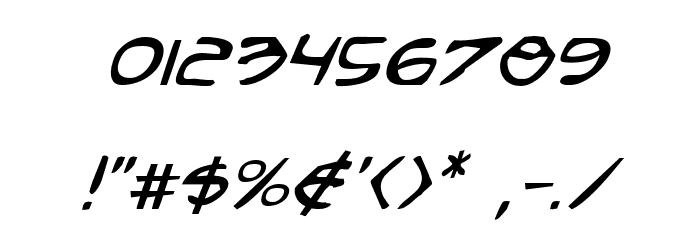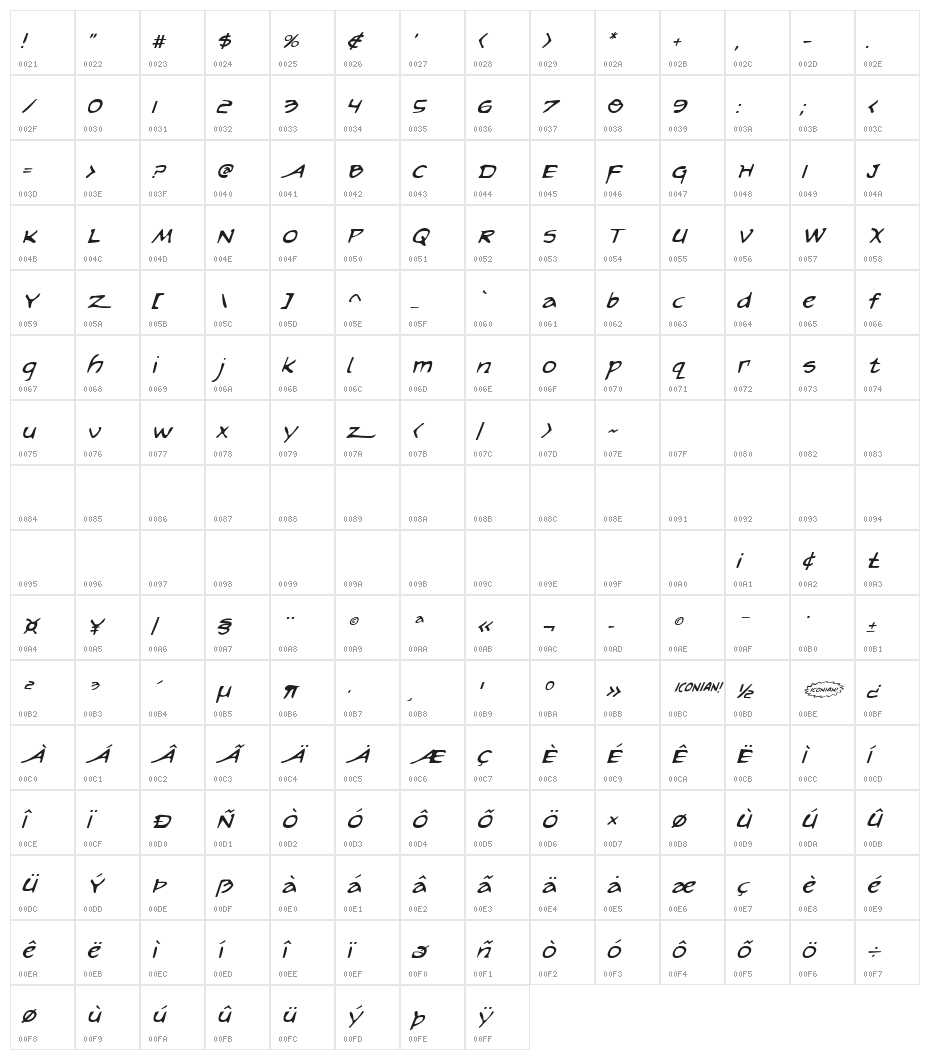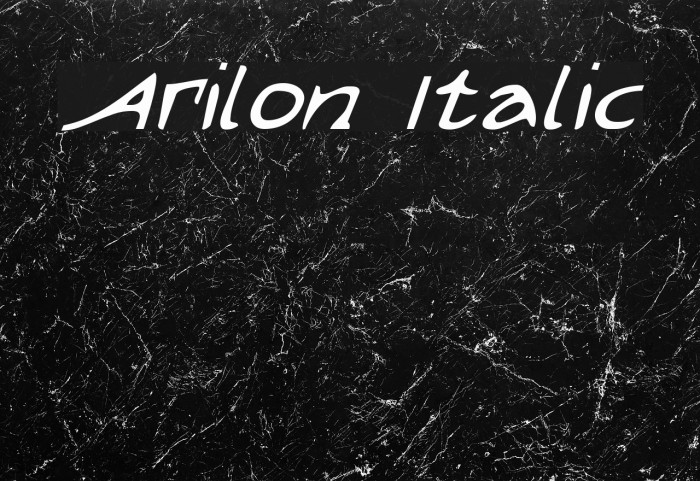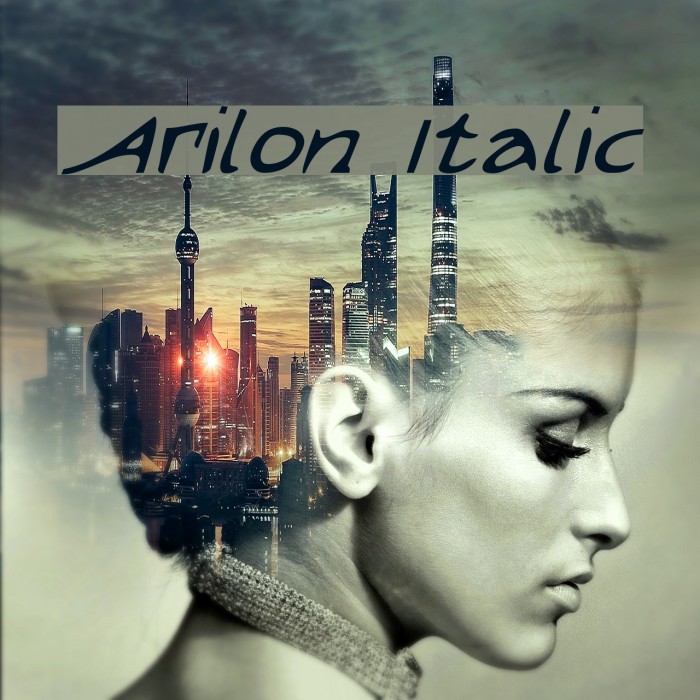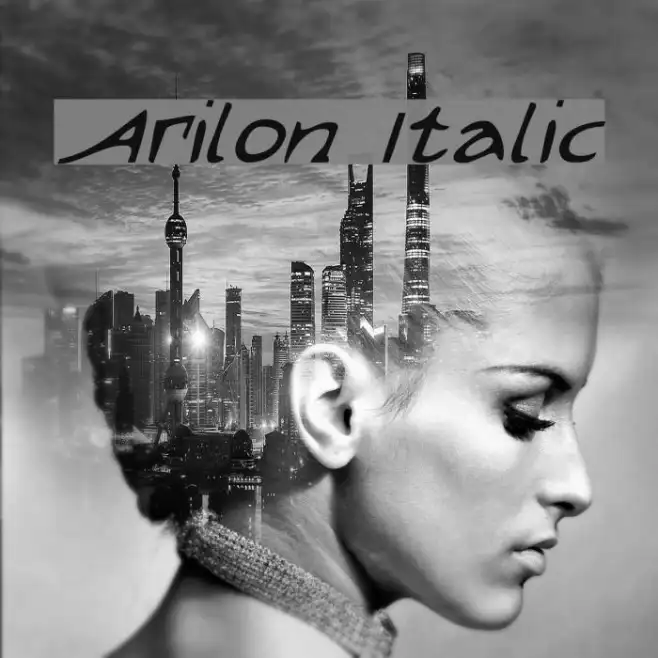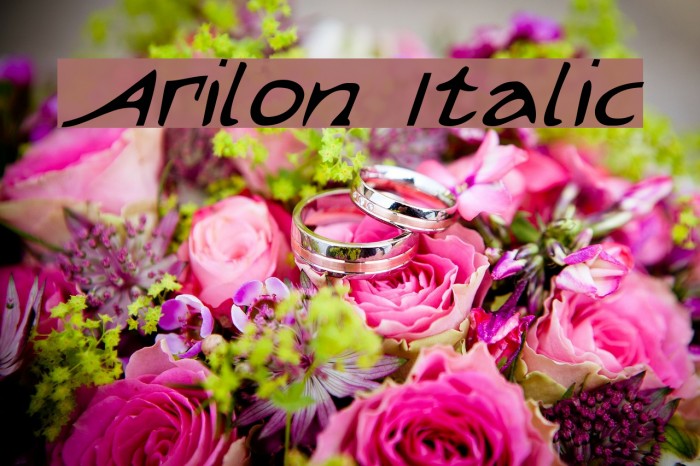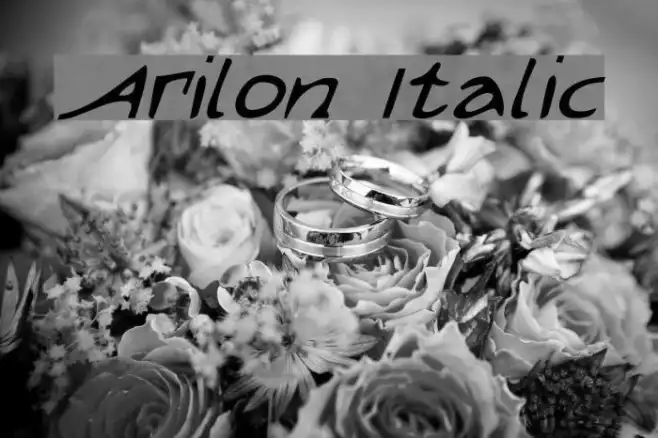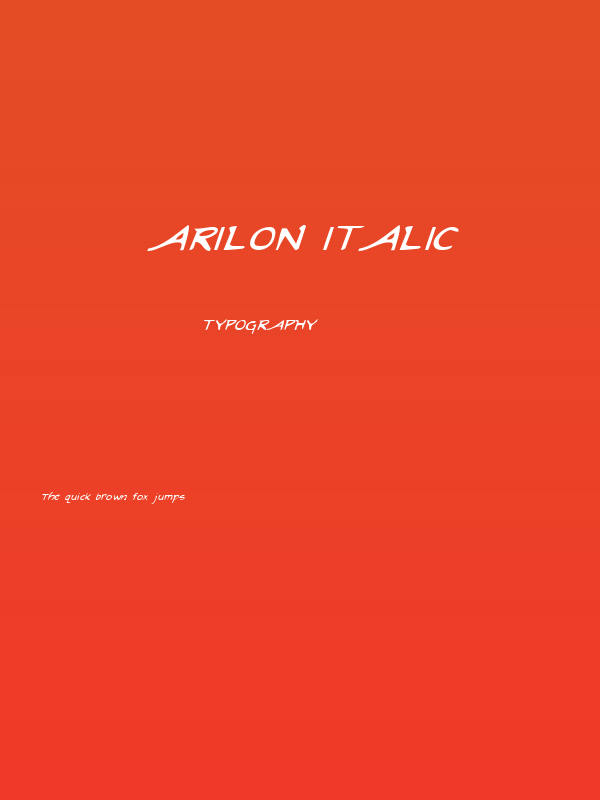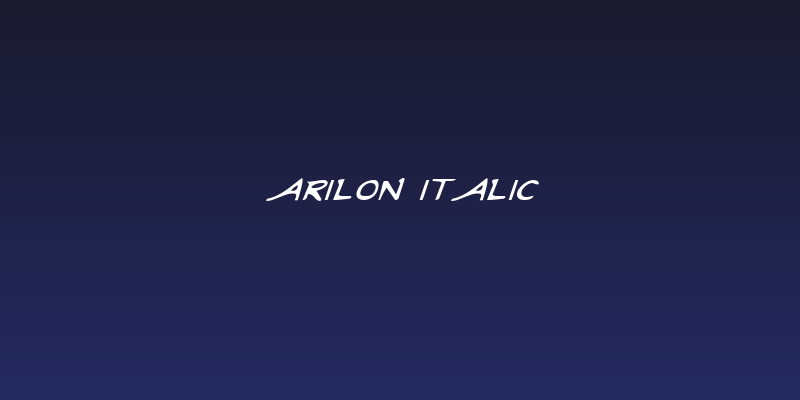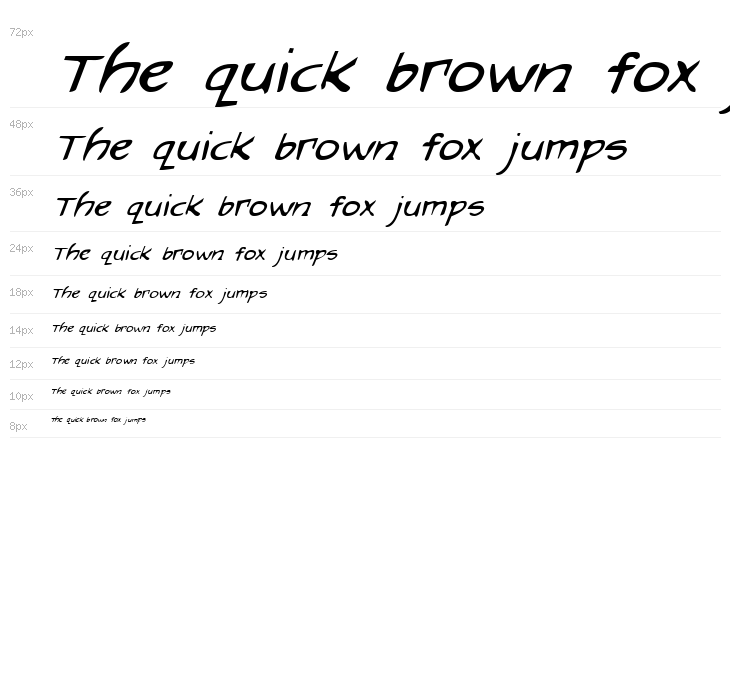
Arilon Italic Font
Arilon Italic Description
This font exhibits a dynamic and fluid style, characterized by its italicized and slightly slanted letterforms. The strokes are smooth and continuous, giving it a handwritten appearance. The uppercase letters are bold and prominent, while the lowercase letters maintain a consistent flow, enhancing readability. The numerals are well-proportioned and align seamlessly with the overall aesthetic. Special characters are crafted with the same attention to detail, ensuring they complement the alphabetic characters. This font's design is both expressive and versatile, making it suitable for a variety of creative applications.